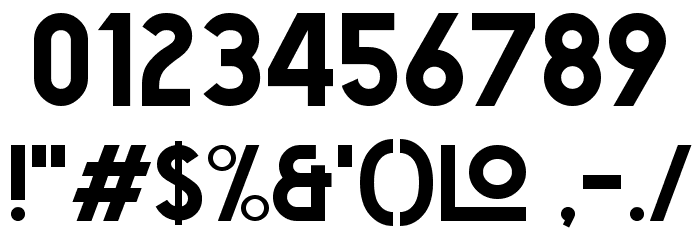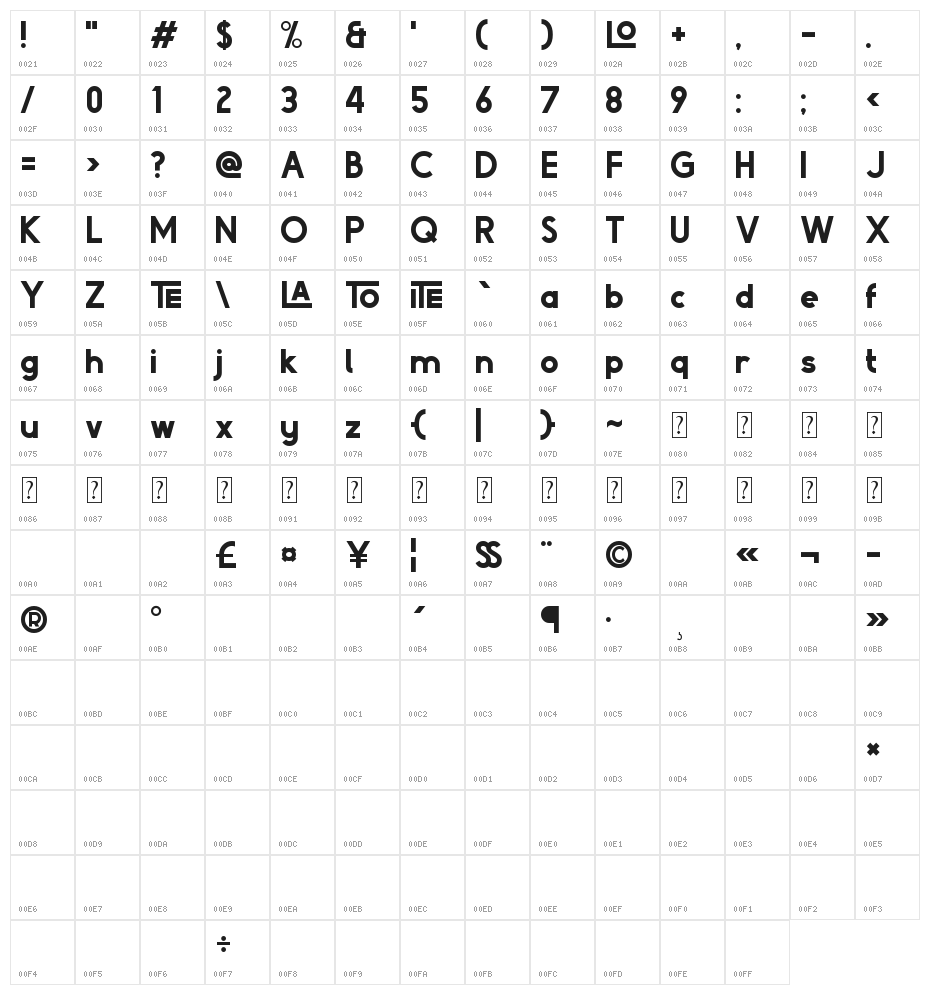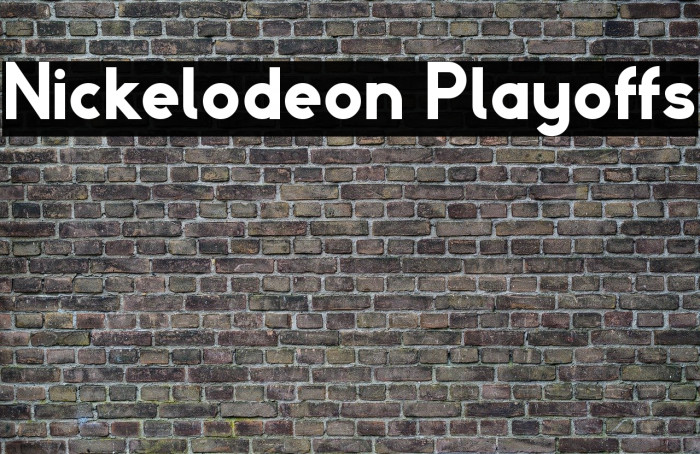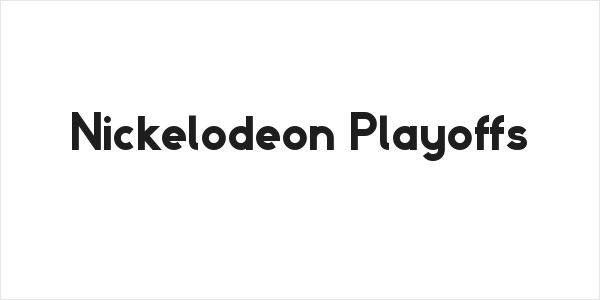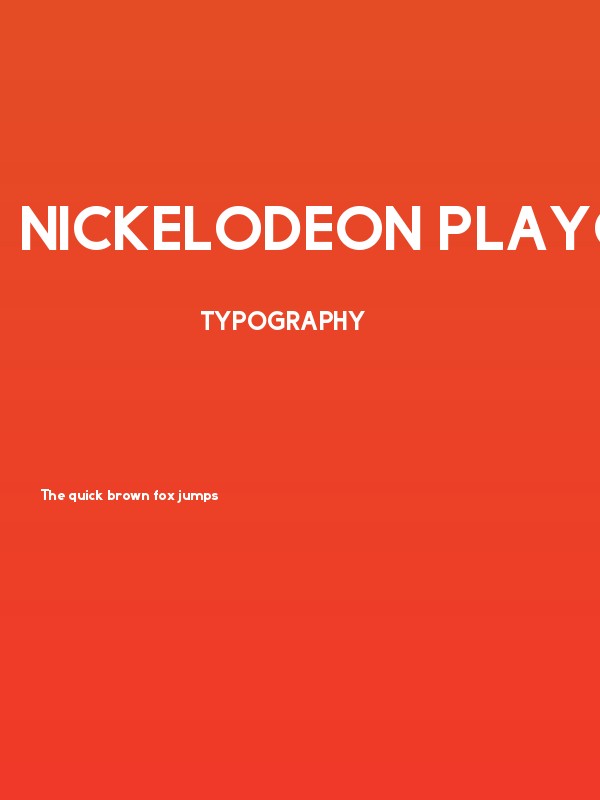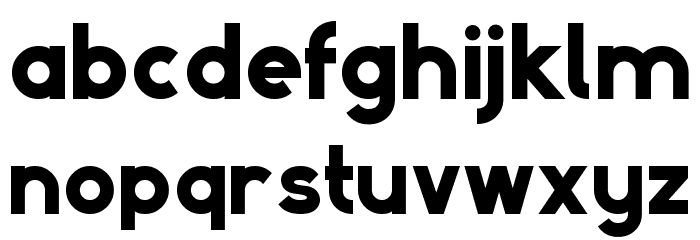
Nickelodeon Playoffs Font
Nickelodeon Playoffs Description
This font features a bold, geometric sans-serif style with clean lines and a modern aesthetic. The uppercase letters are uniform in height, while the lowercase letters maintain a consistent baseline with rounded edges, giving a friendly and approachable feel. The numerals are clear and legible, matching the boldness of the alphabet. Special characters are well-integrated, maintaining the overall geometric style. The font's design is versatile, suitable for both digital and print media, offering a contemporary look that is both professional and playful.